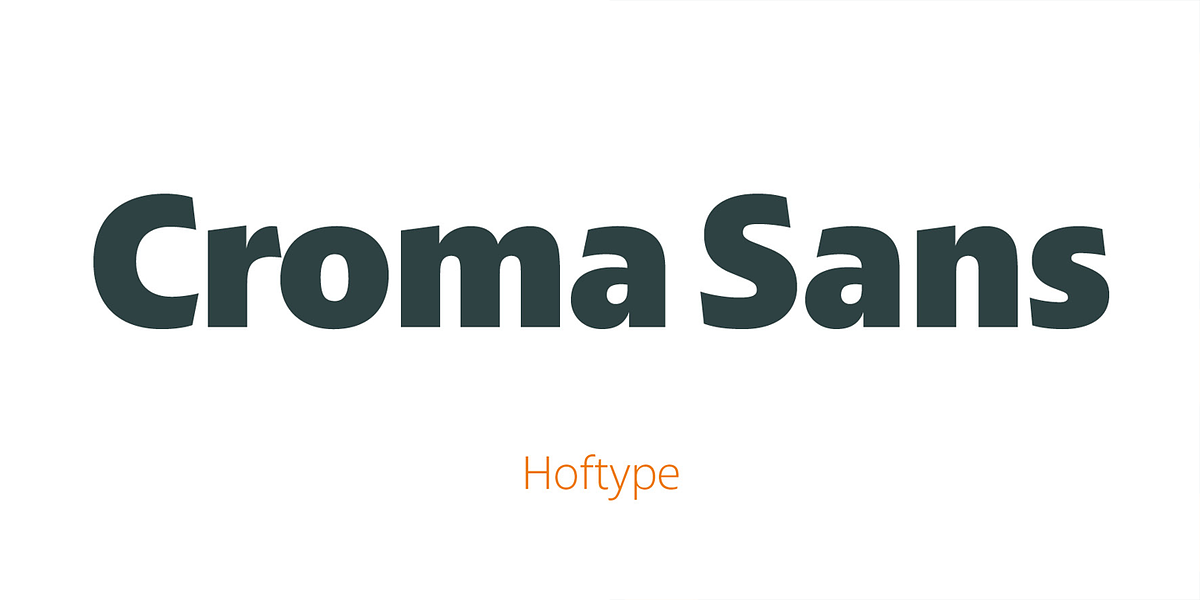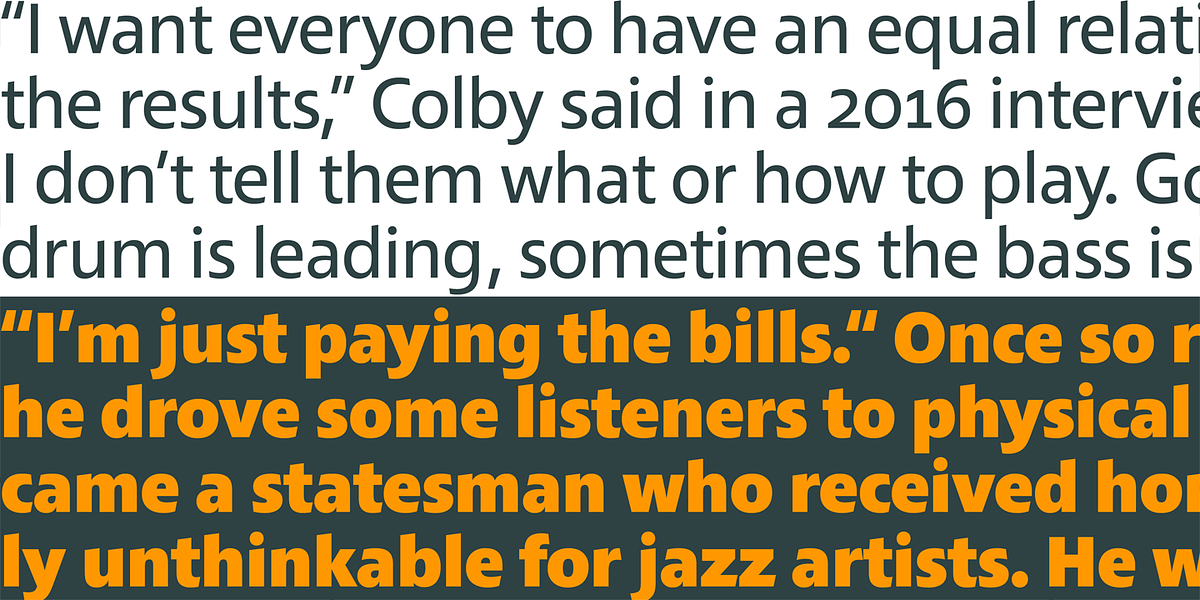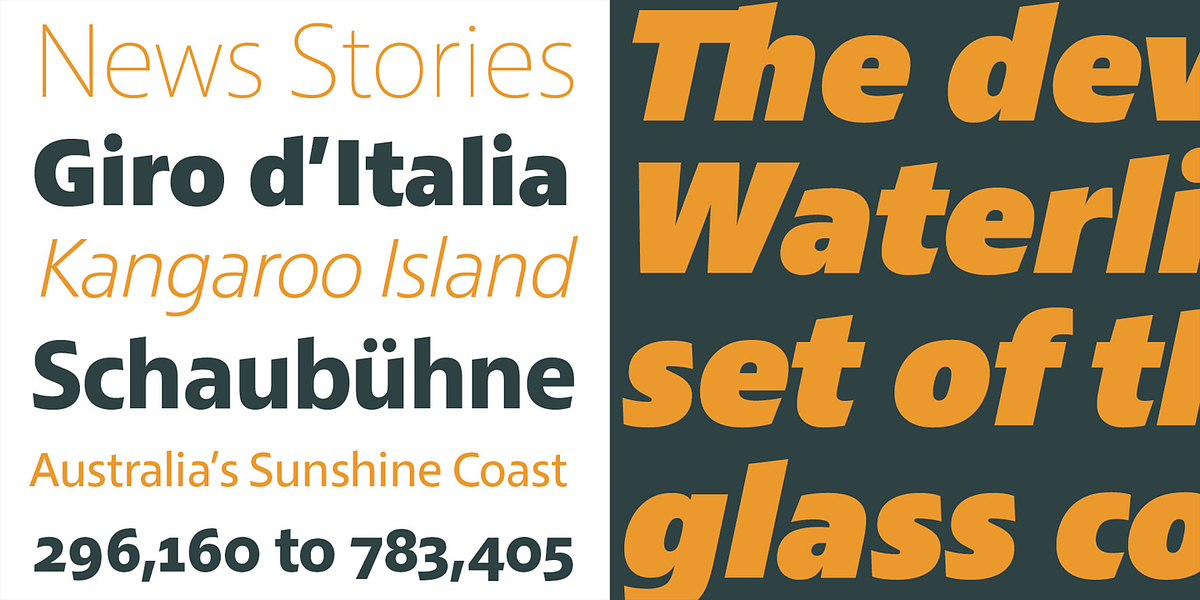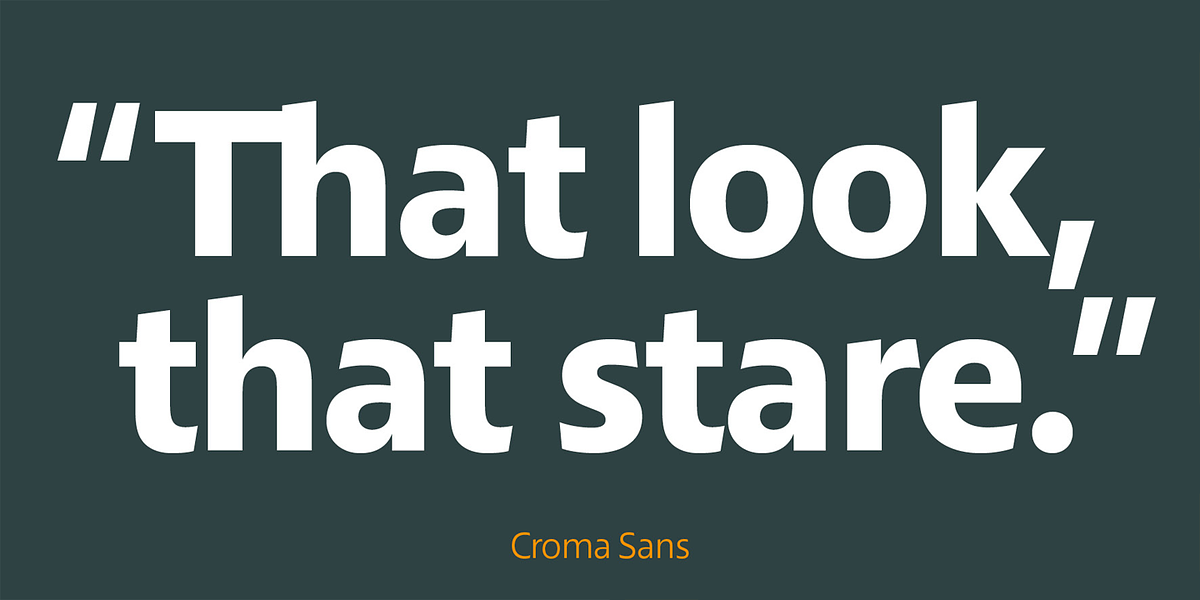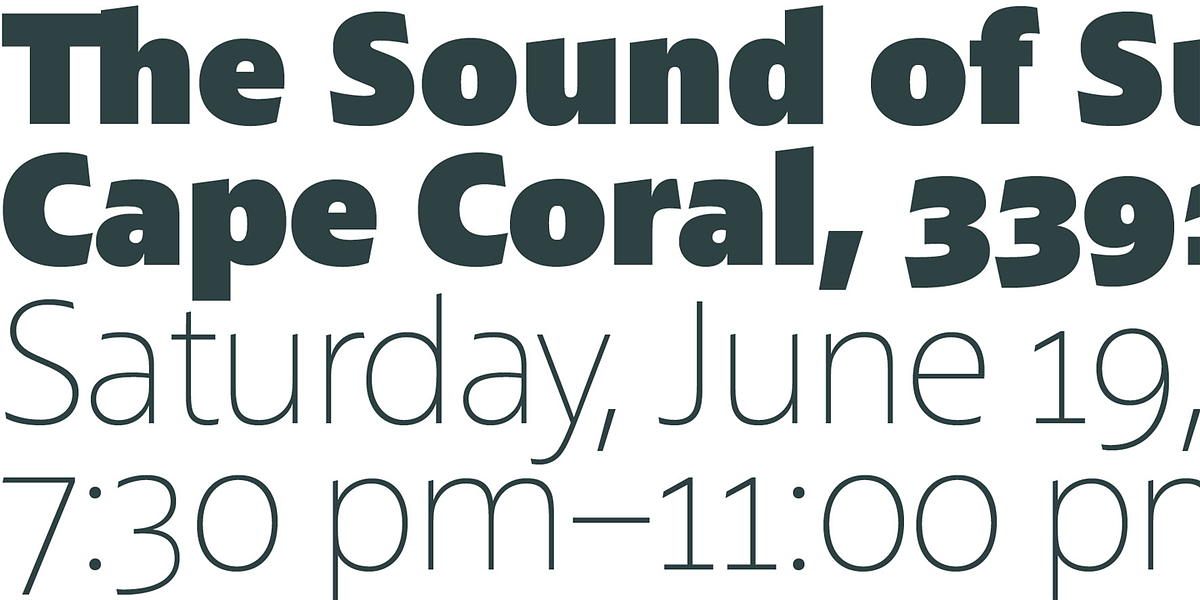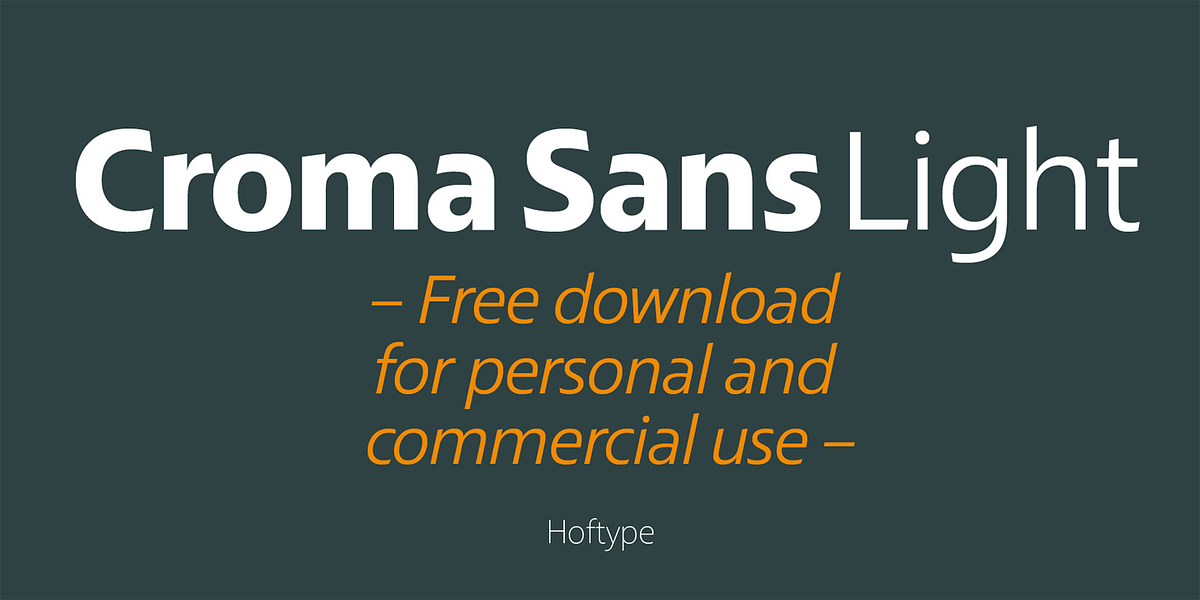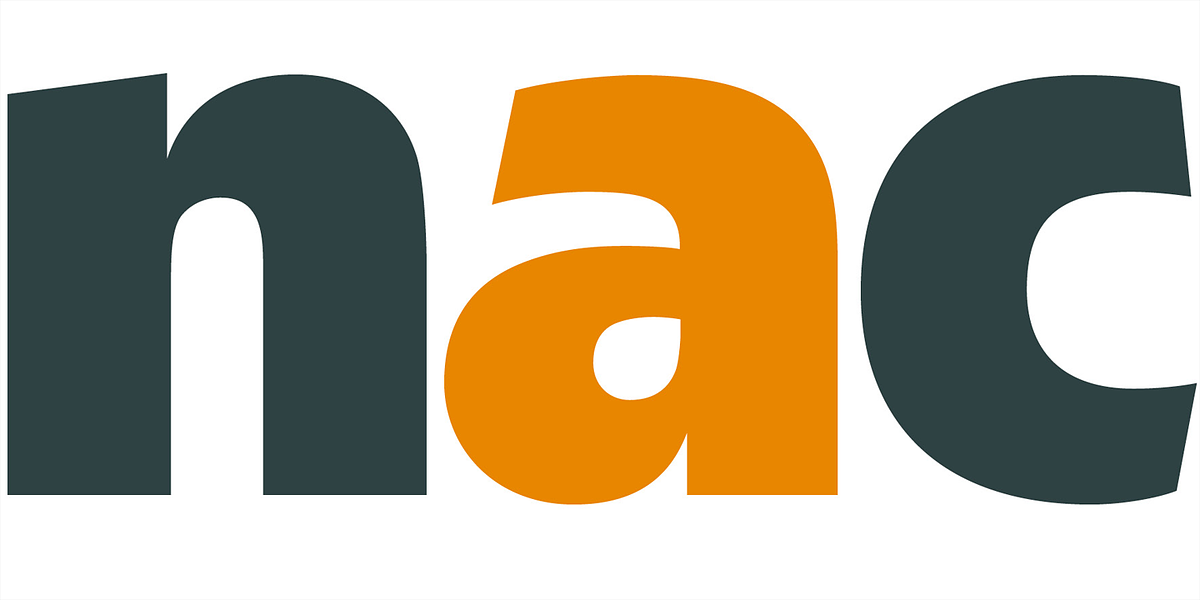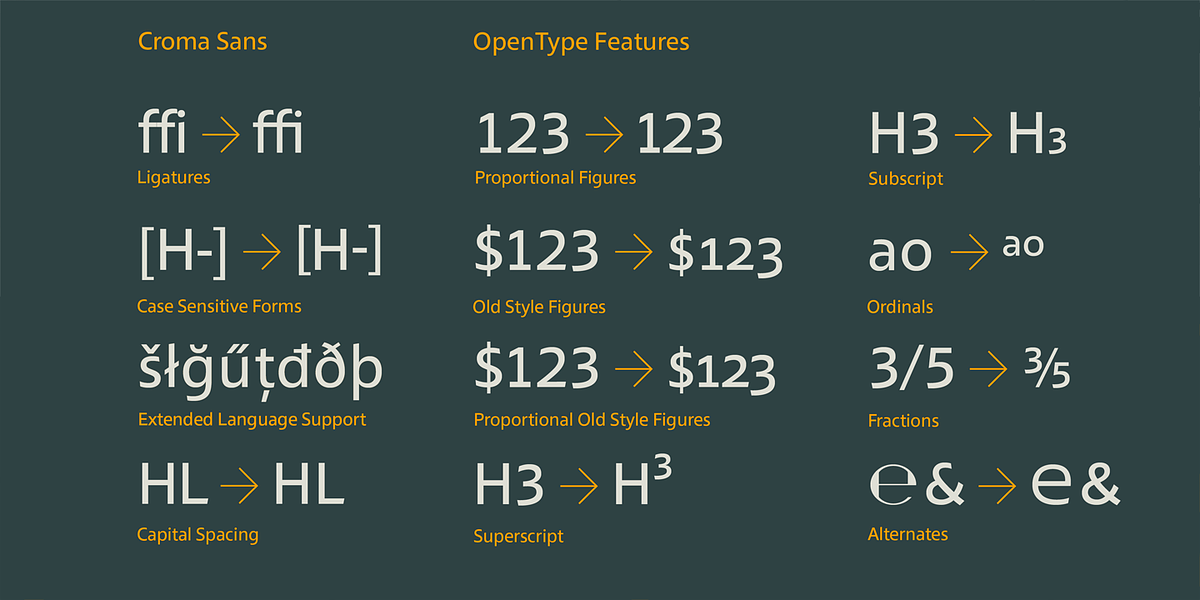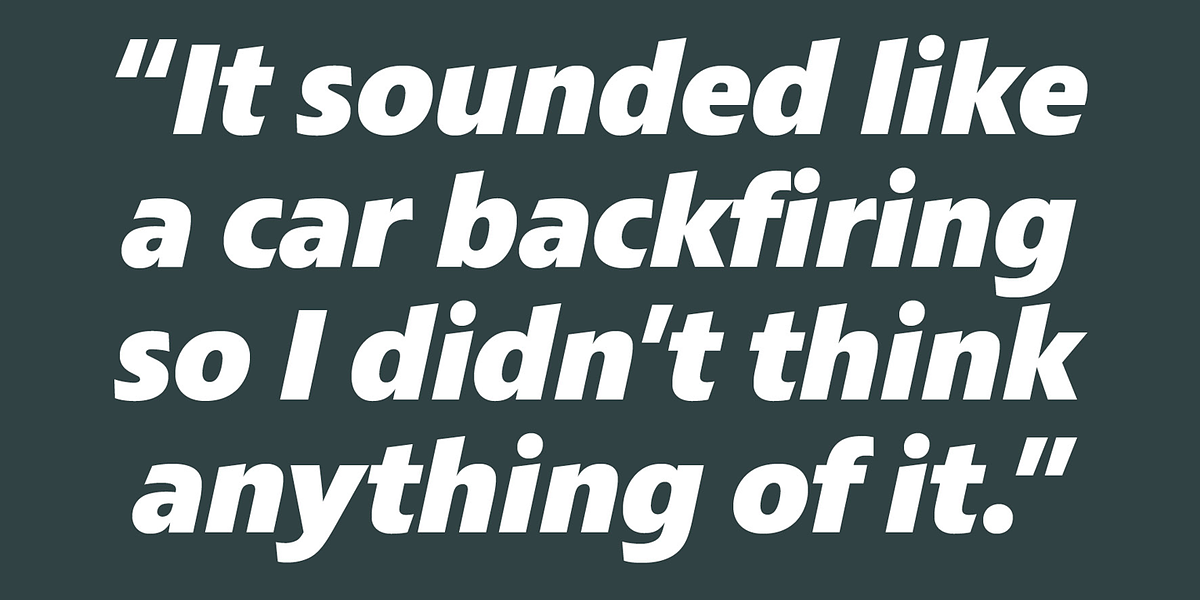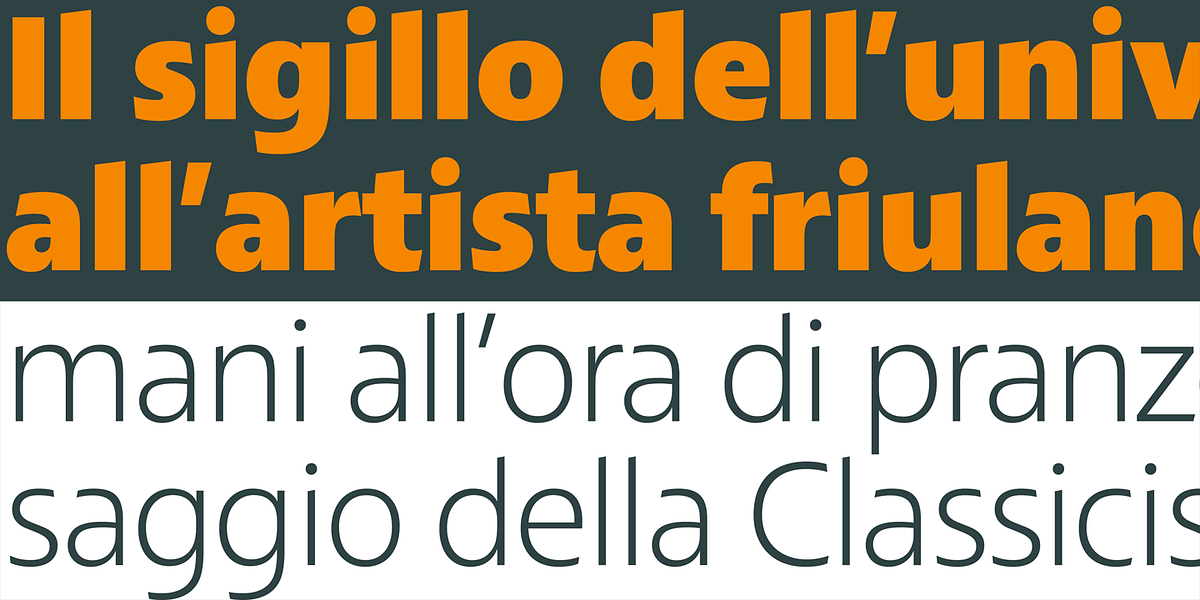
Croma Sans
Croma Sans is a humanist sans serif font designed for ambitious typography. It features a linear style and comes in 16 styles with extensive language support and OpenType features including ligatures, various numeral sets, currency symbols, and arrows.